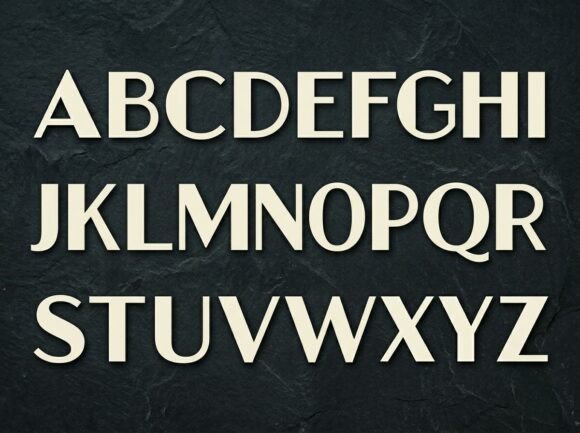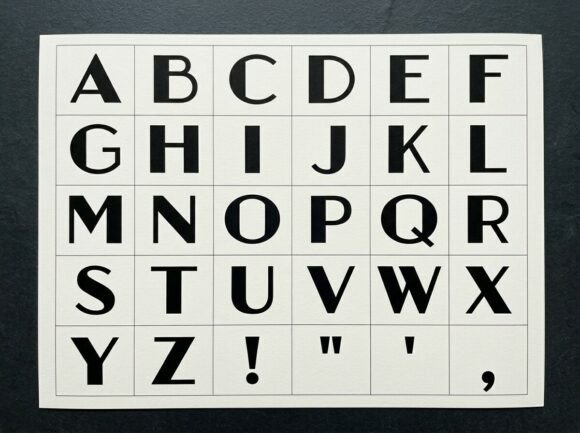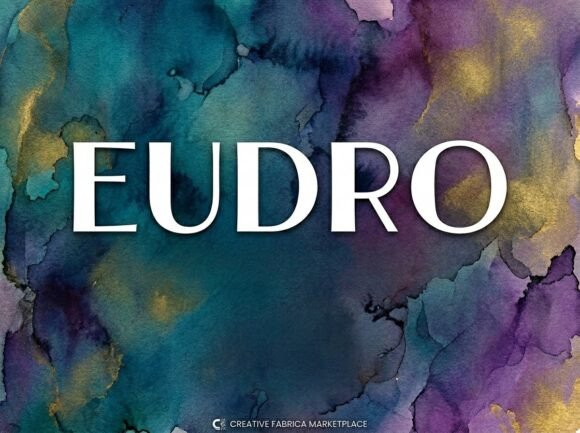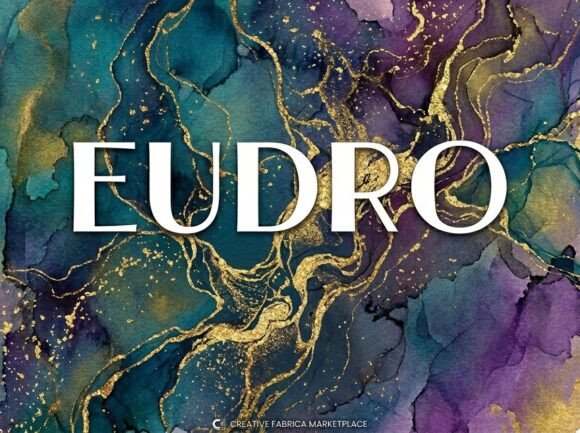
Eudro Font: A Stunning Decorative Display Font for Creative Minds
Are you tired of using the same old fonts for your designs? Do you want to make a statement and stand out from the crowd? Look no further than the Eudro Font, a unique and artistic display font that’s perfect for creators who want to add a touch of elegance and sophistication to their work.
What is Eudro Font?
Eudro Font is a decorative display font designed to be the center of attention. With its unique artistic elements and strong visual personality, this font is perfect for bold headlines, artistic logos, and creative packaging. Whether you’re a designer, craftsperson, or DIY enthusiast, Eudro Font is a versatile and professional font that will elevate your work to the next level.
Key Features of Eudro Font
• Unique Artistic Elements: Eudro Font features intricate and artistic elements that set it apart from other fonts. Each letter is carefully crafted to make a statement and add a touch of elegance to your designs.
• Strong Visual Personality: This font has a strong visual personality that’s perfect for making a bold statement. Whether you’re designing a logo, headline, or packaging, Eudro Font will grab attention and leave a lasting impression.
• Versatile: Eudro Font is versatile enough for a wide range of design applications, from bold headlines and artistic logos to creative packaging and more.
• Professional and Polished Finish: Despite its bold and artistic nature, Eudro Font maintains a professional and polished finish that’s perfect for commercial and personal projects.
IMPORTANT NOTE BEFORE PURCHASE: Eudro Font is an ALL-CAPS (Uppercase Only) display typeface. This means that it does not include lowercase letters. It’s specifically designed for high-impact headlines, logos, and decorative initials where every letter is a work of art.
Why Choose Eudro Font?
• Uniqueness: Eudro Font is a one-of-a-kind font that’s sure to make your designs stand out from the crowd.
• Quality: With its professional and polished finish, Eudro Font is perfect for commercial and personal projects.
• Versatility: Whether you’re designing a logo, headline, or packaging, Eudro Font is versatile enough to handle any design application.
Who is Eudro Font for?